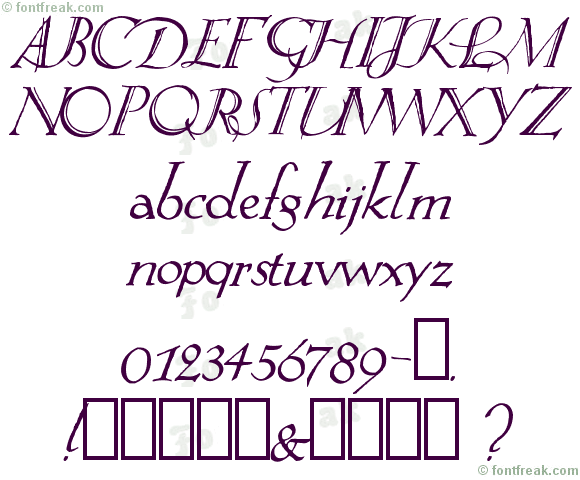
Springtime_Capitals
Springtime_Flourish
Springtime
Springtime_Alternate
Springtime by Paul Lloyd is a captivating script font that embodies the essence of renewal and warmth associated with the season. Characterized by its elegant flourishes and graceful curves, this font stands out with a medium stroke weight and a moderate contrast that enhances its legibility while still showcasing its artistic flair. The spacing is thoughtfully designed to maintain readability, making it suitable for various applications. The decorative elements of the Springtime font, including its swirls and alternate characters, add a whimsical touch that can elevate any design project.